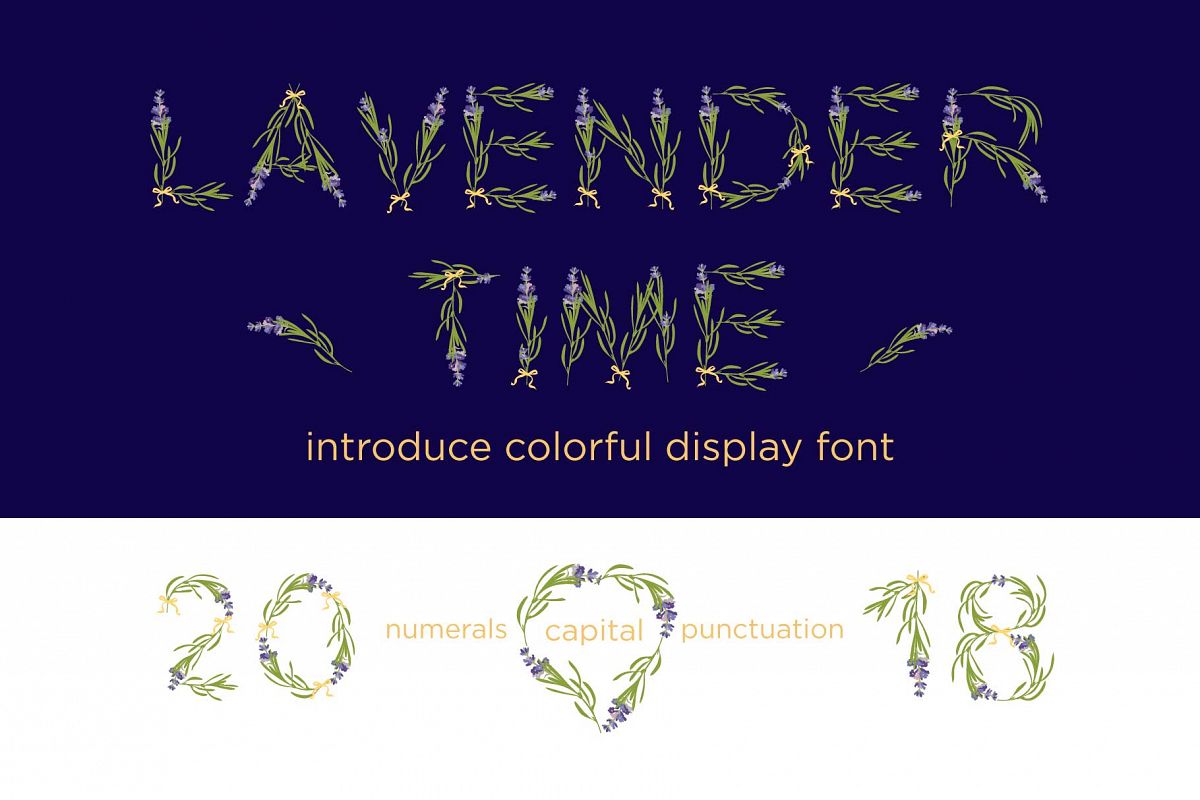
LAVENDER-TIME multicolor font
LAVENDER-TIME-Color OTF-SVG  multicolor font. Display font based on
botanical illustration. You can use this font for design logos, monogram prints
on t-shirts, children posters and love cards and… other.
Font was designed with Fontself Maker in Illustrator CC. Contains CAPITALS
letters, NUMERALS & DIGITS, PUNCTUATION.
With
multicolor OTF font you can type multicolor text.